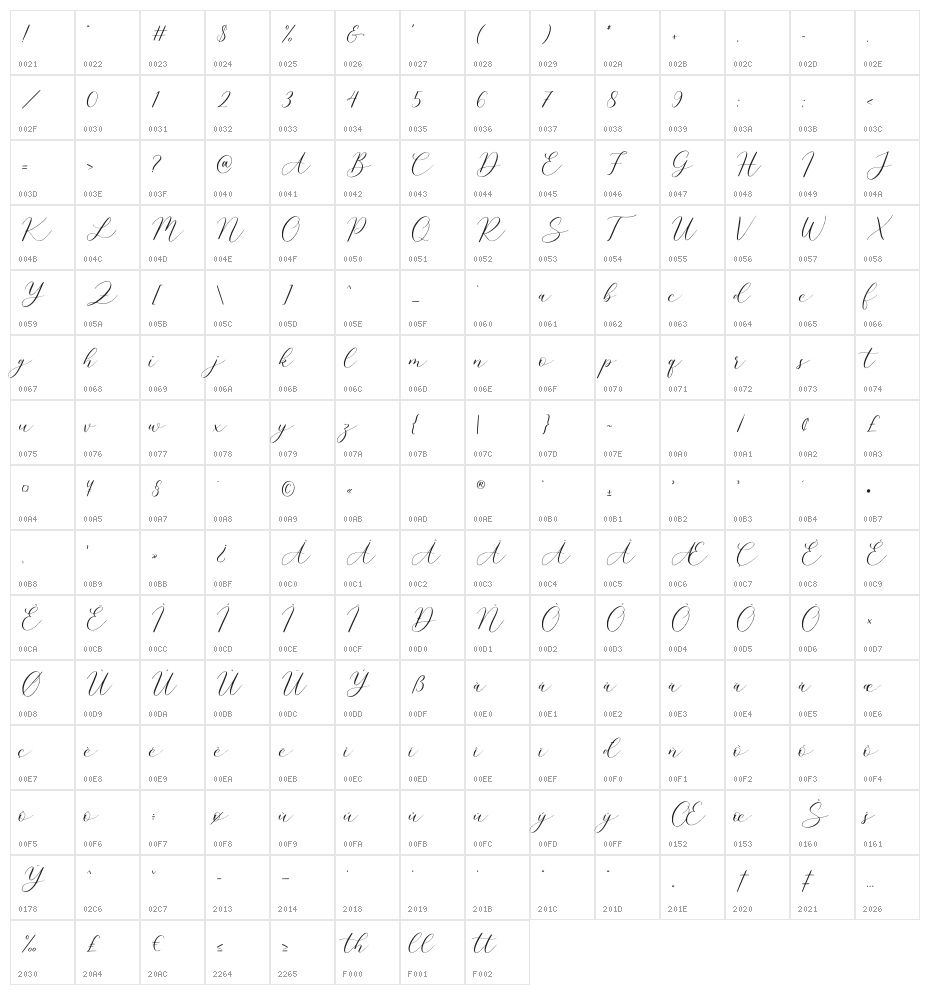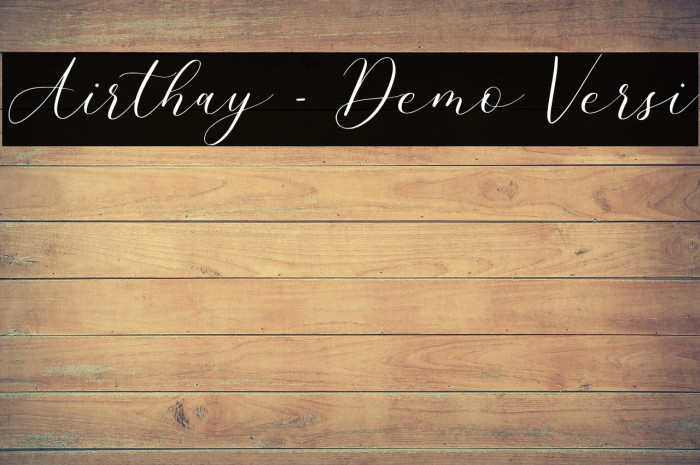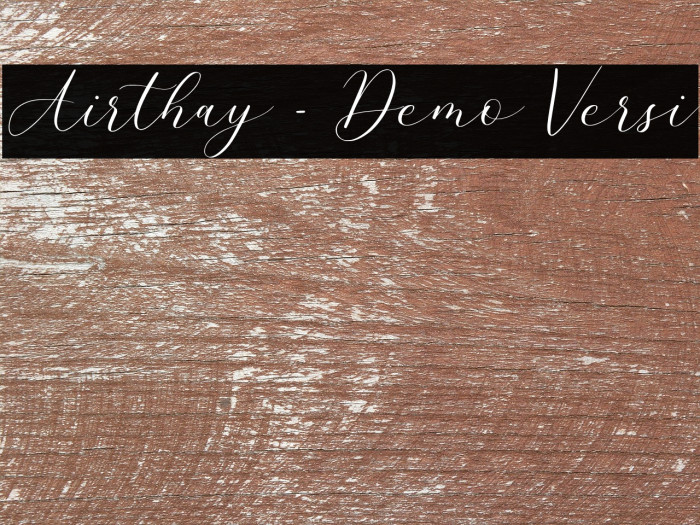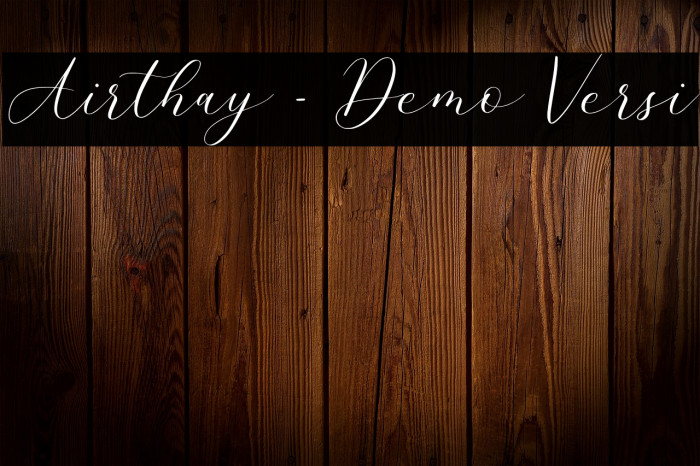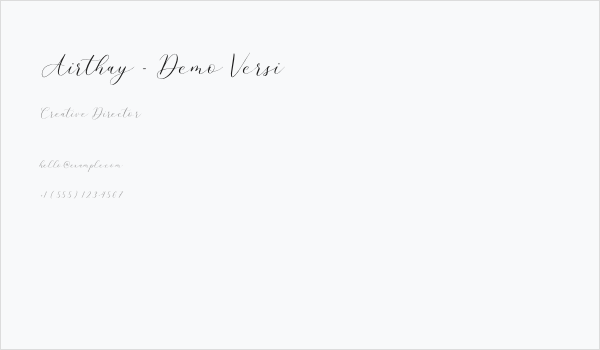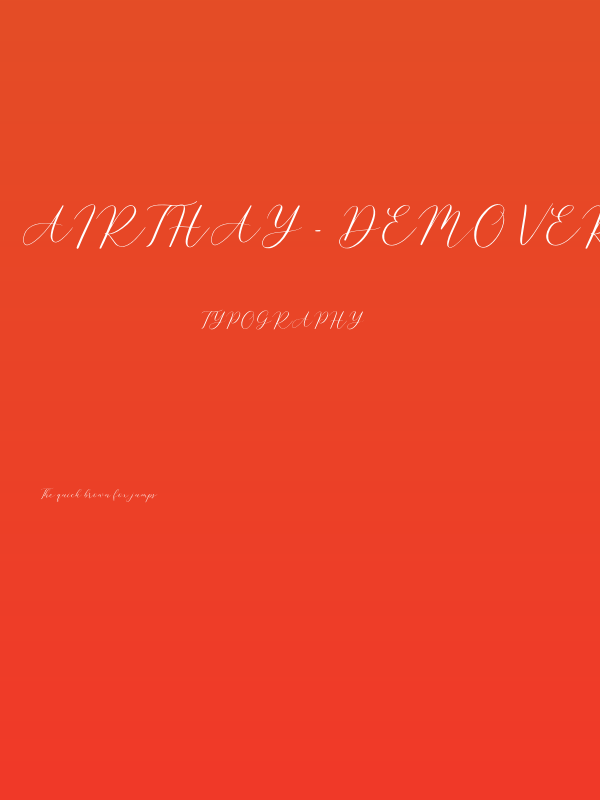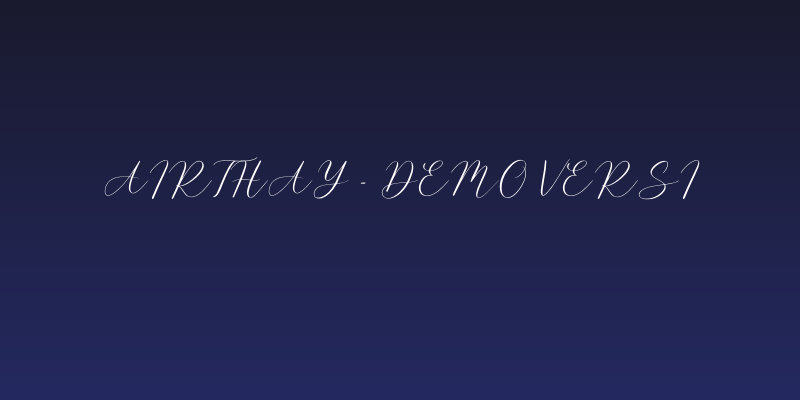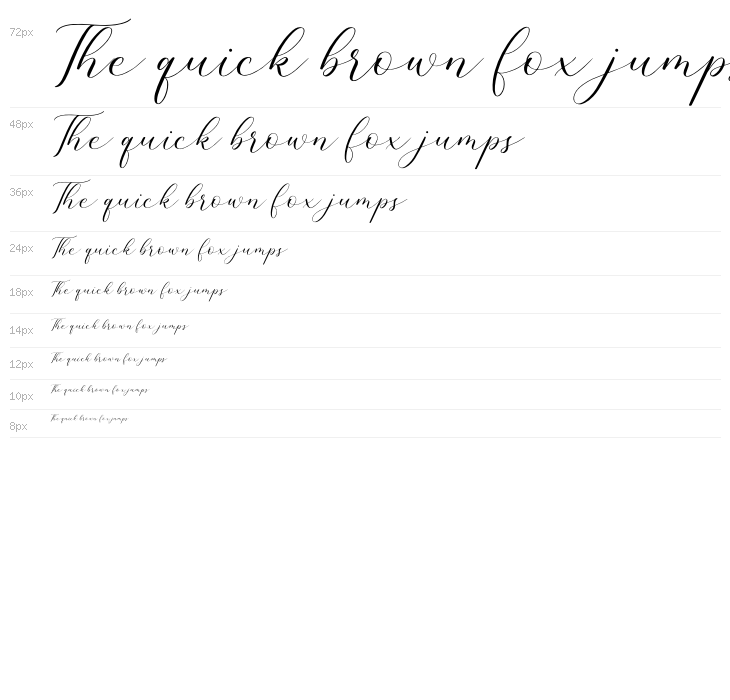
Airthay - Demo Versi Font
Airthay - Demo Versi Description
This elegant script font features flowing, cursive letterforms with a sophisticated and graceful appearance. The uppercase letters exhibit a classic calligraphic style with sweeping ascenders and descenders, while the lowercase letters maintain a consistent fluidity and charm. The numerals are designed with a similar elegance, offering a cohesive look throughout. Special characters are thoughtfully integrated, enhancing the font's versatility. The overall design is delicate yet impactful, making it suitable for a variety of creative applications.